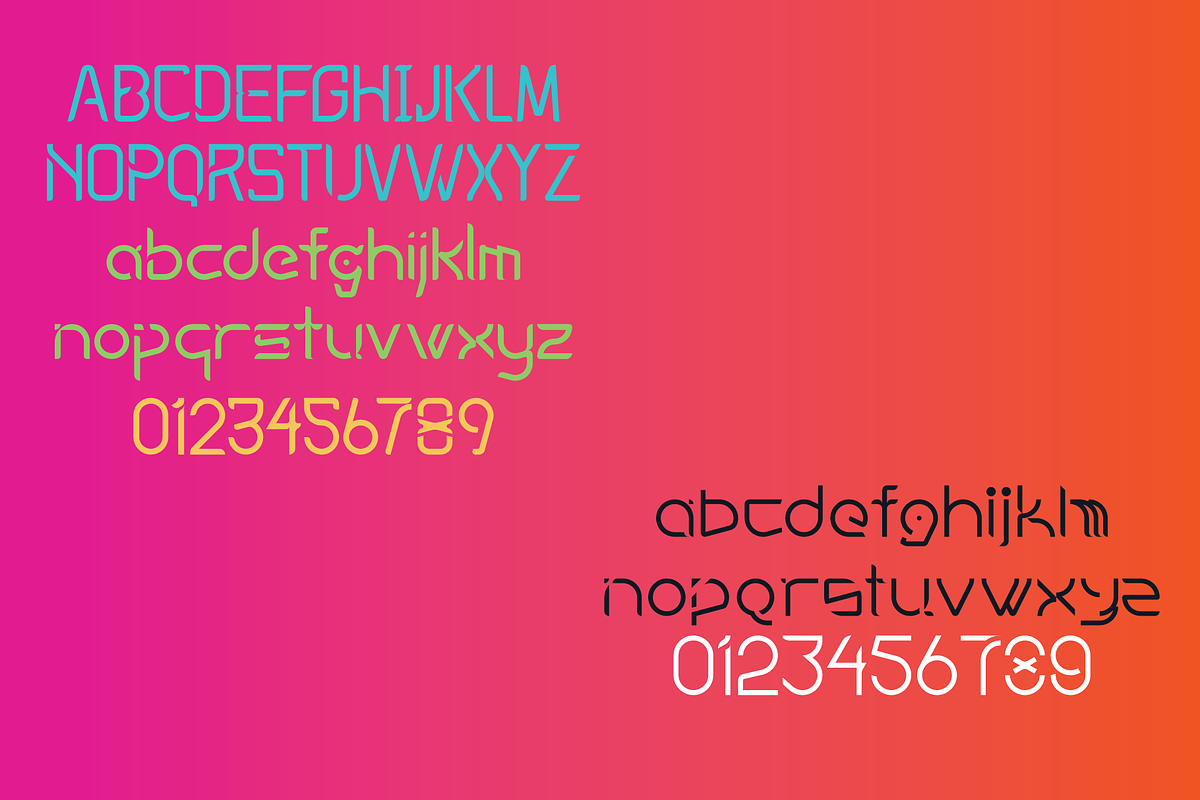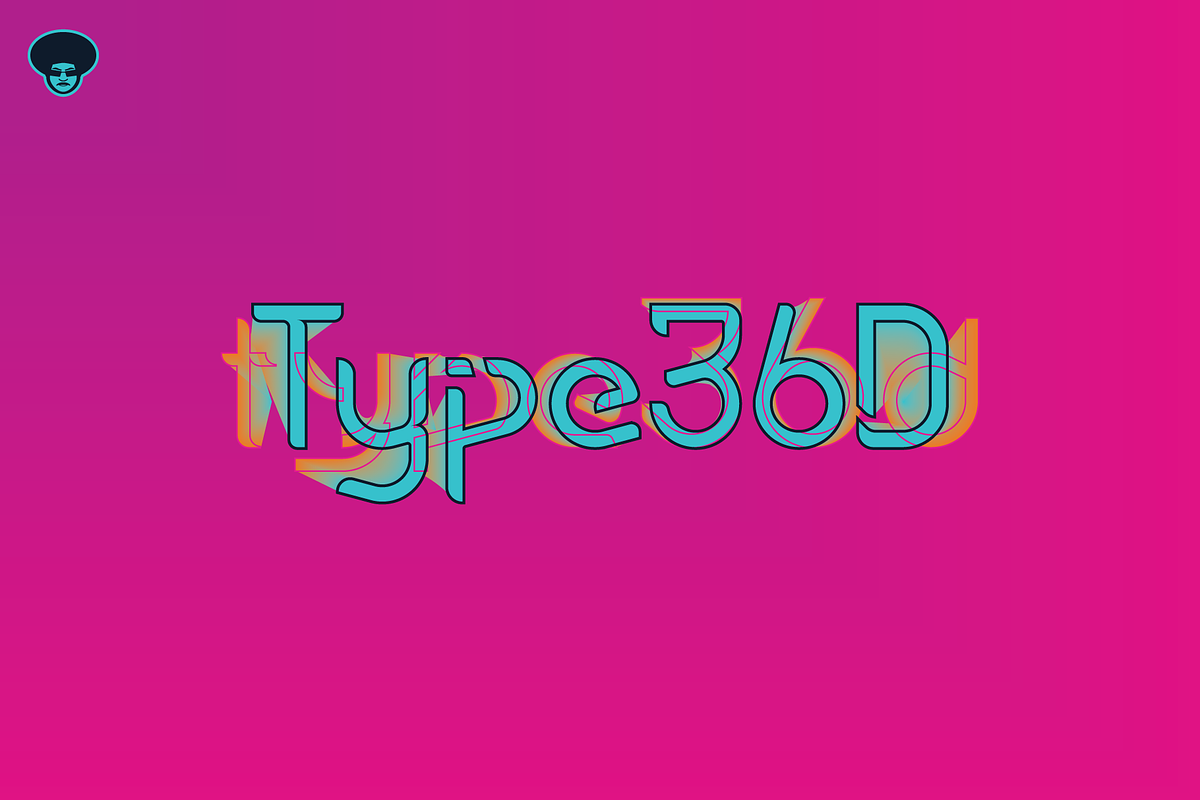
Type36D
A retro futuristic style typeface based on a personal exercise I did for 36daysoftype in 2022. Also, this typeface is an accumulation of all the things I learned in regards to type since 2017.
Two font styles: Regular & Original
- Regular is the altered font style for commercial use.
- Original has only 36 glyphs due to each glyph being the art piece for 36daysoftype.